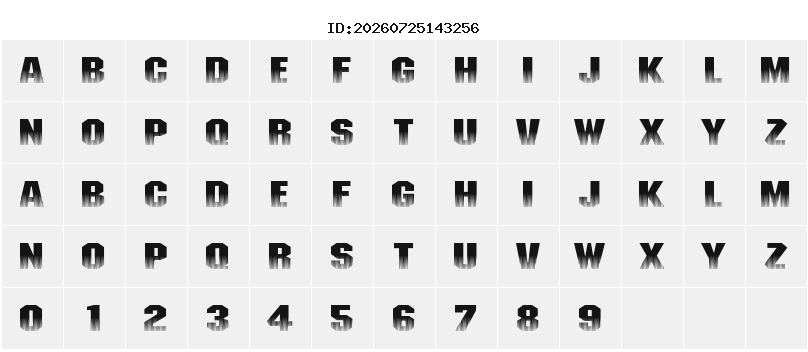
InvisibleKiller Preview
About InvisibleKiller.ttf
InvisibleKiller.ttf is a modern, elegant sans-serif font designed for ultimate readability and visual harmony. Perfect for branding, headlines, web design, and print materials.